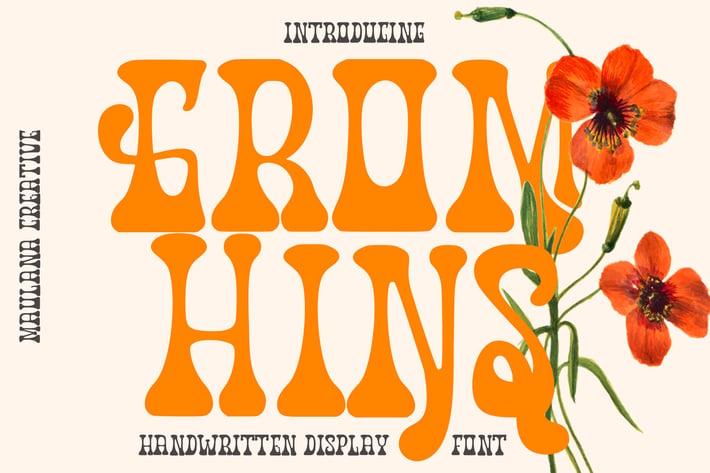
Gromhins Handwritten Display Font
Gromhins is a decorative psychedelic display font. With bold high contrast stroke, fun character with a bit of ligatures and alternates. To give you an extra creative work. Gromhins font support multilingual more than 100+ language. This font is good for logo design, Social media, Movie Titles, Books Titles, a short text even a long text letter and good for your secondary text font with sans or serif. Make a stunning work with Gromhins font.